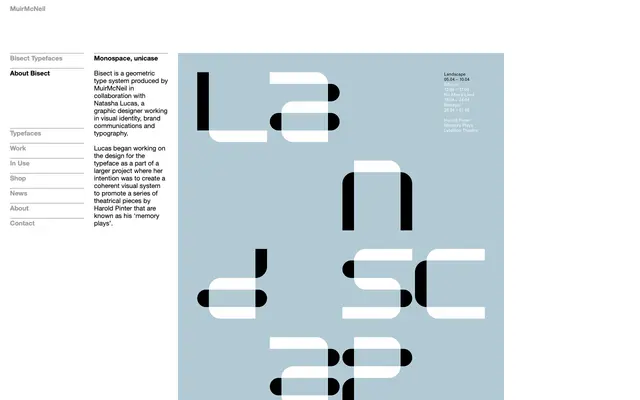
Bisect
Muirmcneil · Natasha Lucas
A unicase geometric mono system built on a grid of horizontal and vertical segments, designed in four layerable versions to express the fragmentation of language and memory.
Conceived by Natasha Lucas as part of a visual system for Harold Pinter's memory plays, Bisect uses a shared grid to govern letterforms, text setting and document formatting simultaneously. Its four versions are precision-cut to register with one another in layers, multiplying the typographic possibilities from a single constrained structure. The playful tension between horizontal and vertical segments gives the system a rigour that suits both theatrical and identity contexts.
Bisect is explicitly described as monospace and unicase, built on a strict grid system with horizontal and vertical character segments, placing it firmly in the geometric mono category.